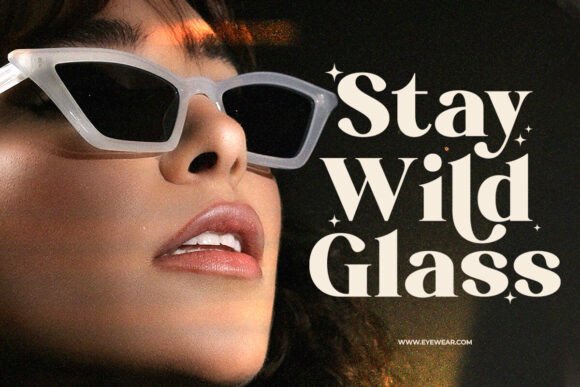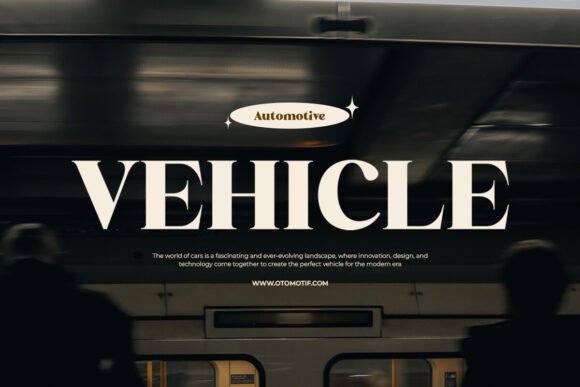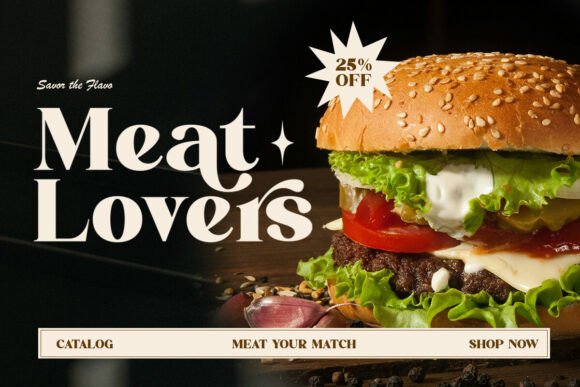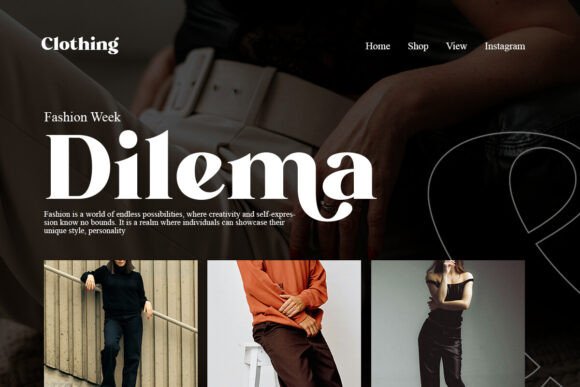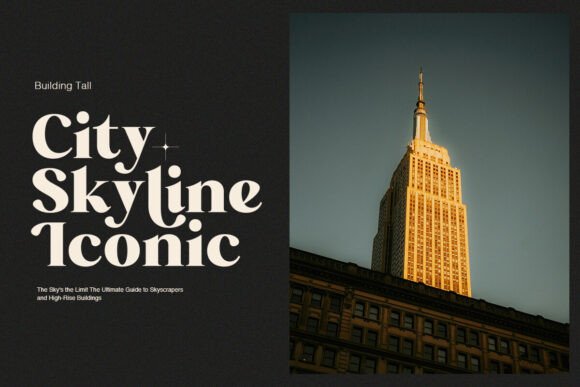
Introducing the Grained Display Serif Font: Elevate Your Designs with Elegance
In the world of graphic design, the right font can make all the difference. It’s not just about conveying a message; it’s about doing so with style and sophistication. This is where the Grained Display Serif Font comes into play. This beautifully crafted font is designed to add a touch of elegance to your designs, making them stand out in a crowded digital landscape.
What Makes Grained Stand Out?
Grained is more than just a font; it’s a design statement. Its sleek alternates and graceful ligatures are meticulously designed to bring a level of sophistication to your projects. Whether you’re working on a logo, a poster, or a website, Grained provides the perfect blend of style and readability. Its unique characteristics ensure that your designs don’t just look good; they look exceptional.
One of the key benefits of the Grained font is its versatility. It’s a multilingual-friendly font, meaning it supports a wide range of languages. This makes it an invaluable tool for designers who work on projects that require multiple languages or for those who cater to a global audience. No matter which language you’re working with, Grained has got your back, ensuring your message is conveyed beautifully and effectively.
Compatibility Across Platforms
In today’s digital age, ensuring your designs look great across all platforms is crucial. The Grained font is designed with compatibility in mind. Whether your audience is viewing your work on a desktop, tablet, or mobile device, Grained ensures that your designs maintain their elegance and sophistication. This cross-platform compatibility means you can confidently share your work, knowing it will look great everywhere.
Perfect for Graphic Design Needs
From crafting a memorable logo to designing an eye-catching poster or creating a stunning website, Grained is up to the task. Its elegant design and versatile features make it the perfect choice for a wide range of graphic design projects. With Grained, you can elevate your designs, making them more engaging and effective at capturing your audience’s attention.
Key Features of Grained Display Serif Font
- Sleek Alternates: Add a unique touch to your designs with Grained’s sleek alternate characters.
- Graceful Ligatures: Bring elegance to your text with beautifully designed ligatures.
- Multilingual Support: Cater to a global audience with a font that supports multiple languages.
- Cross-Platform Compatibility: Ensure your designs look great on all devices and platforms.
The Grained Display Serif Font is a game-changer for designers looking to elevate their work with elegance and sophistication. Its unique features, versatility, and compatibility make it an essential tool for any graphic design project. Whether you’re a professional designer or a crafty DIY enthusiast, Grained offers the perfect combination of style and functionality to make your designs pop.
So why settle for ordinary when you can make your designs extraordinary with Grained? Discover the difference that this exceptional font can make in your work and take your designs to new heights of elegance and effectiveness.